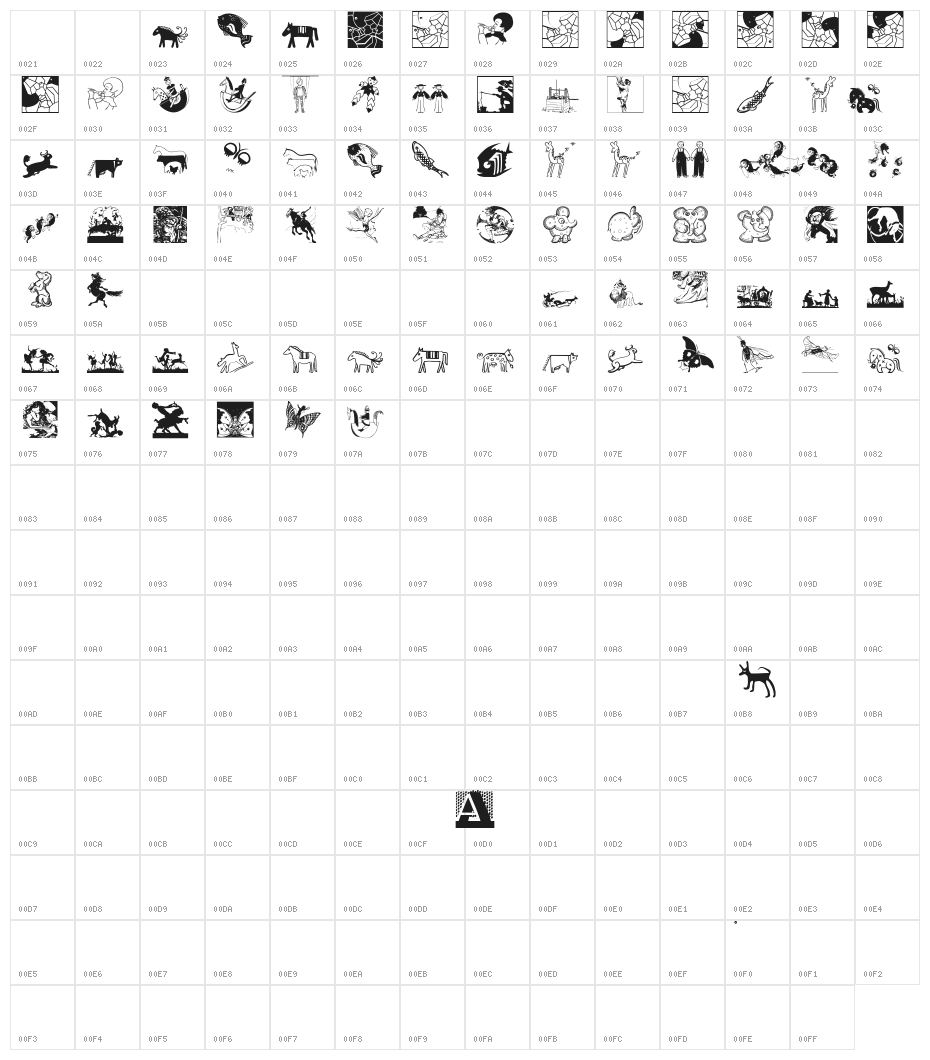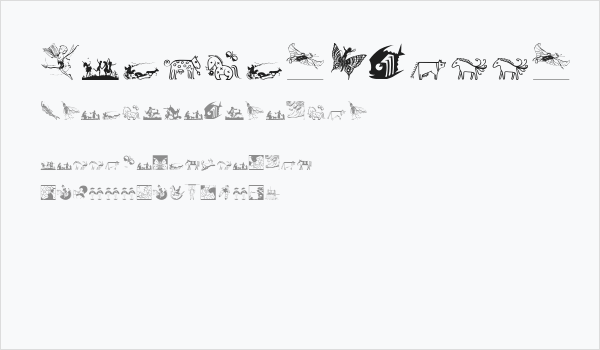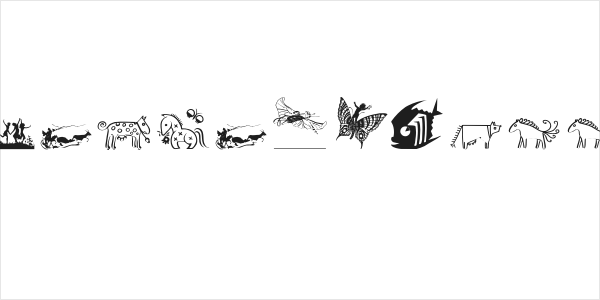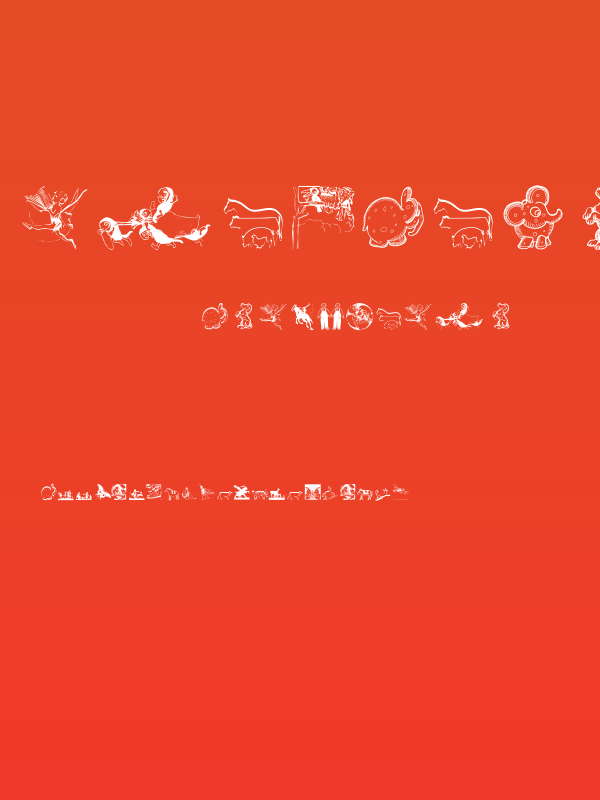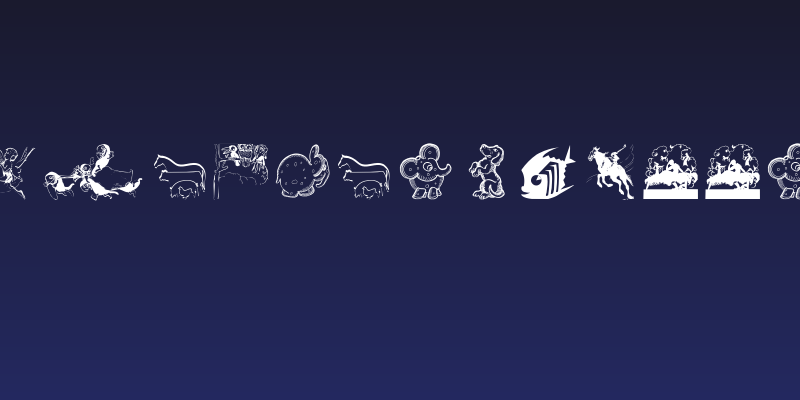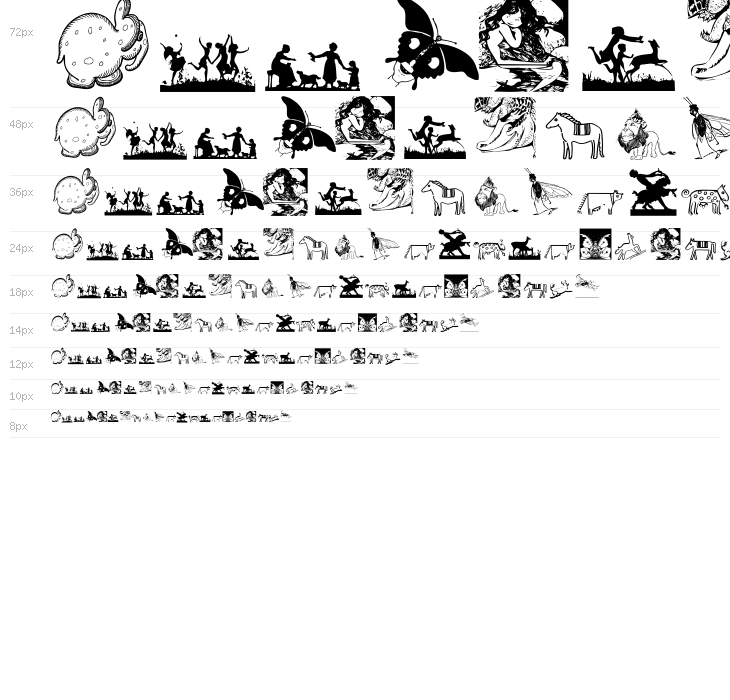
PhantasyDolls Font
A highly decorative and whimsical dingbat font featuring a variety of playful illustrations, including animals, children, toys, and storybook scenes, rendered in black and white with a hand-drawn, cartoon-like style. Each character is a unique pictorial glyph rather than a traditional letterform.
Overall StyleWhimsical, Playful, Decorative
Use CaseIllustrative accents, icons, decorative elements
Proposed ProjectsChildrenÒ€ℒs books, educational materials, scrapbooking, greeting cards, playful branding, decorative borders.